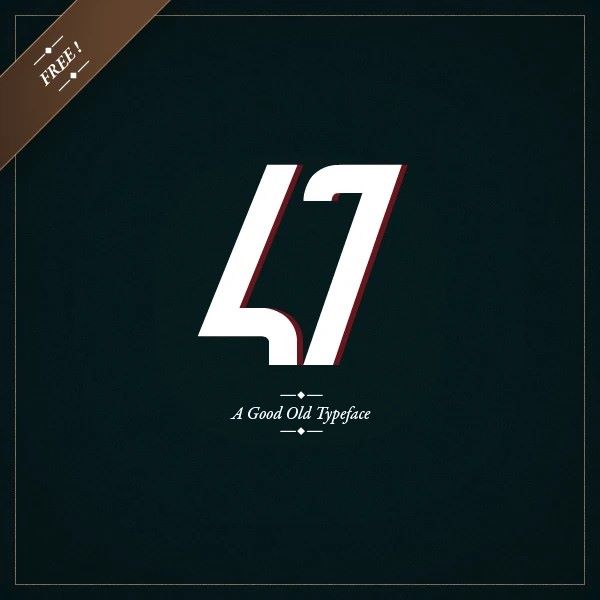
47 Font
47 by Hendrick Rolandez is a bold retro font with an economy of concept and a depth of character that belies its simplicity. Created in 2012, it takes a resolute all-caps approach — capitals and lowercases sharing the same form — with a clean set of numerals from 0 to 9, resulting in an alphabet that is immediately legible and visually arresting at scale. Available in OTF and TTF. Free for personal and commercial use.